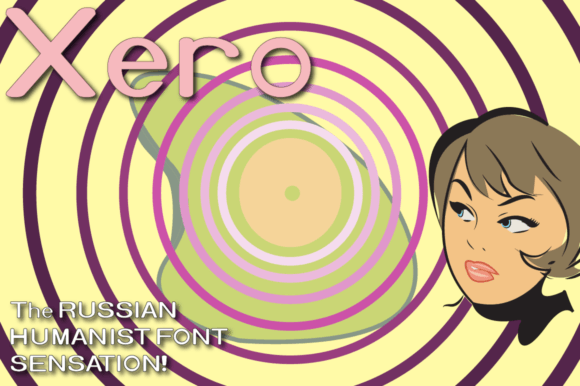
Embark on a typographic odyssey with Xero, the sans-serif font that dances beyond the bounds of convention. Its audacious curves and mischievous strokes defy expectations, captivating your audience with every letter. Xero yearns for the spotlight, demanding attention with its unconventional beauty. From captivating headlines that dance off the screen to striking posters that ignite imaginations, Xero has a talent for stealing the show.
Xero is not just another font—it's an artistic rebellion, a symphony of pixels that orchestrates visual harmony. With its PUA-encoded nature, this font liberates your creativity, granting you unfettered access to an array of enchanting glyphs and swashes. Unleash your inner artist, and let Xero's captivating dance ignite a new era of visual storytelling.
With Xero as your creative companion, you'll find yourself crafting designs that ignite conversations and leave lasting impressions. Its unconventional charm captivates audiences, transforming words into captivating spectacles. Whether you're a seasoned designer or a budding artist, Xero has the power to elevate your creations to new heights.
Xero is more than just a font; it's a gateway to a world of boundless creativity. Let its rebellious spirit ignite your imagination and become part of a typographic revolution. Embrace the unconventional, shatter the norms, and let Xero's bold strokes weave their magic into your designs.